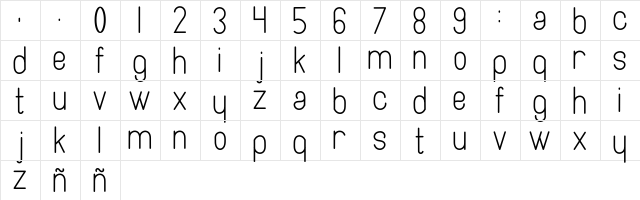
Artesana Medium
Design Context for Artesana Typeface
Artesana is a composed and adaptable typeface that performs quietly and consistently across a wide range of design contexts.